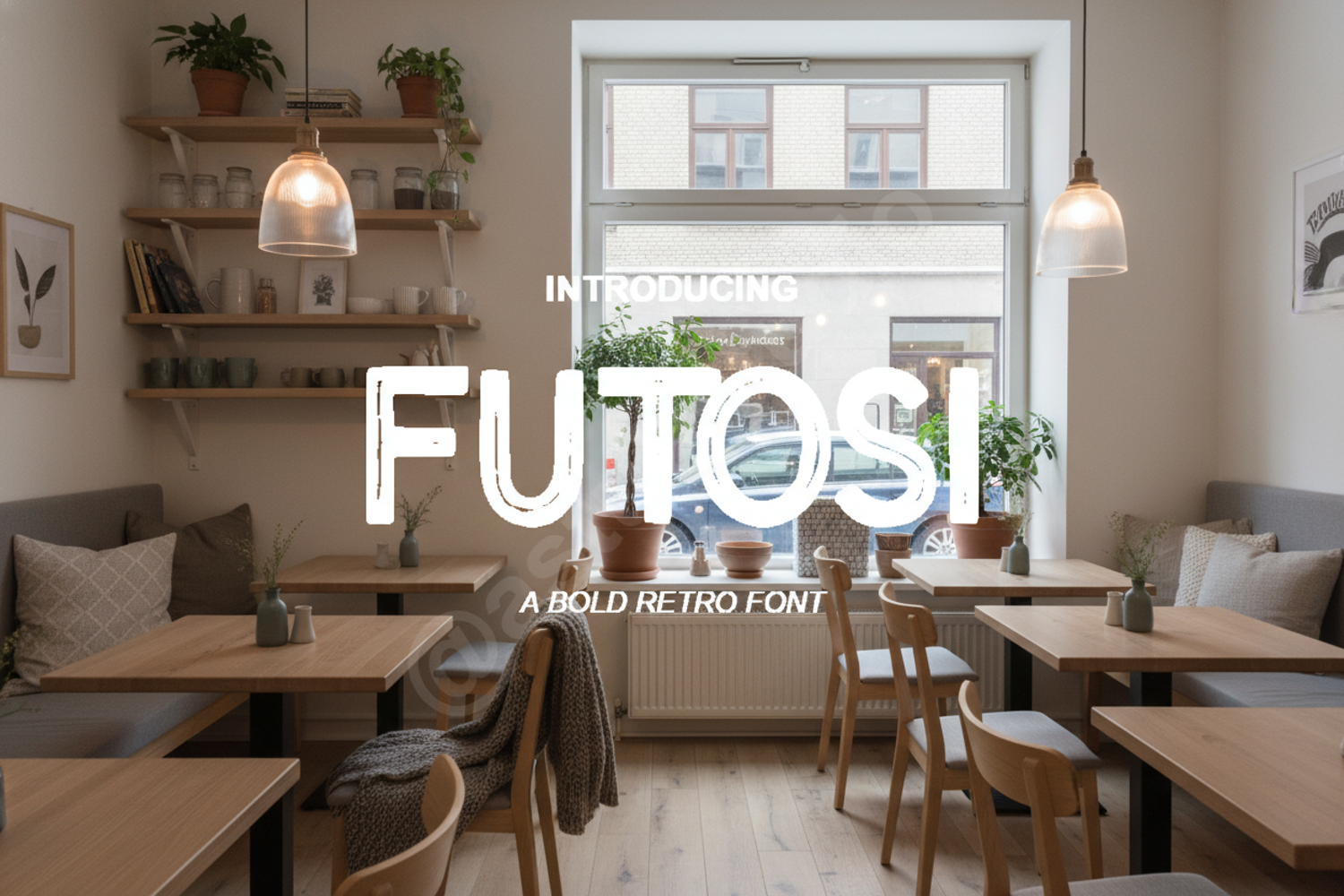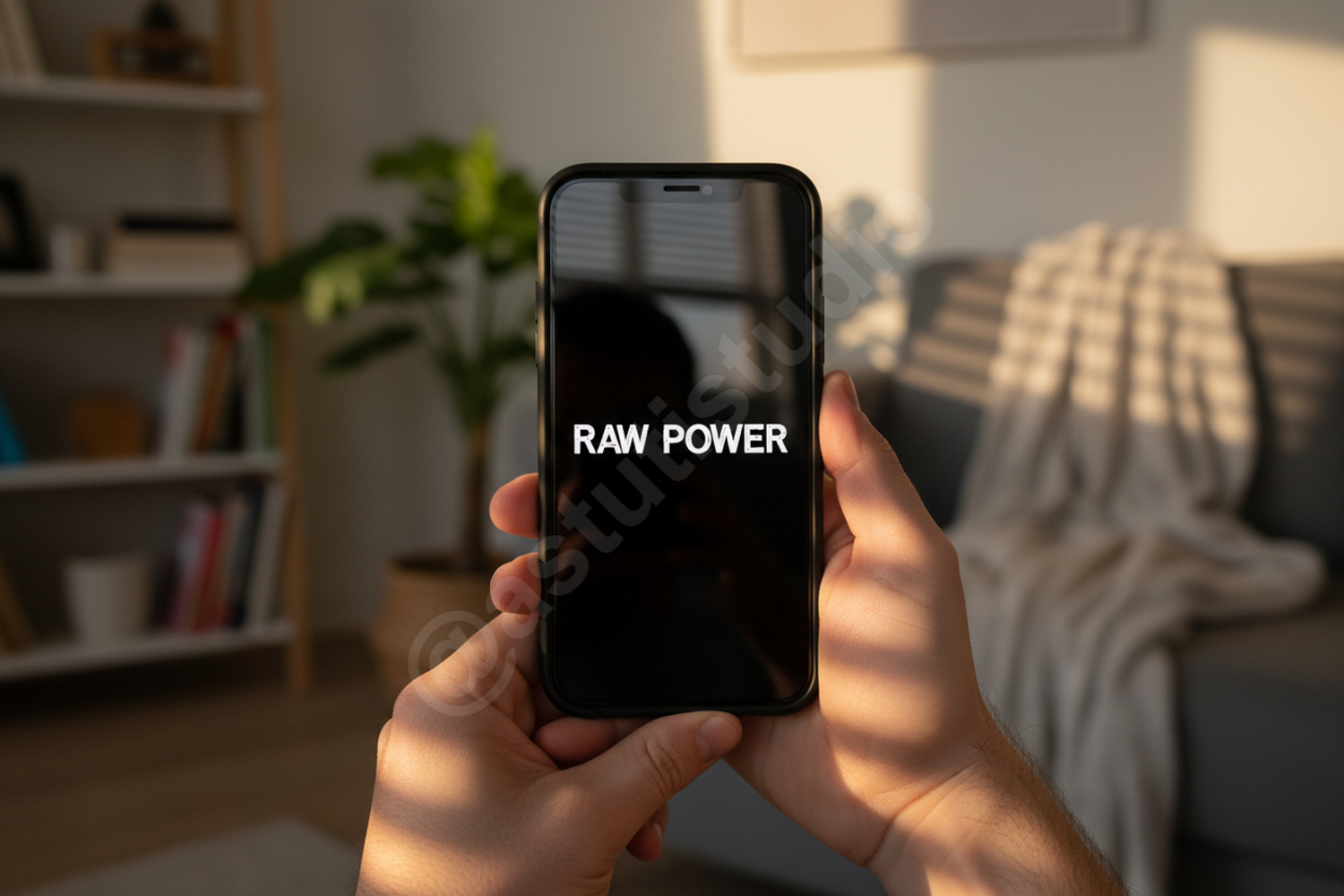
Futosi | Modern Bold Display Serif
Futosi
Futosi is a premium, high-impact display font that brings a sophisticated touch to any creative project. Designed with precision and a focus on modern aesthetics, this typeface offers a unique blend of bold character and elegant refinement. Whether you are working on a luxury brand identity or a high-end editorial layout, Futosi provides the versatility and professional polish needed to make your designs stand out.
- Comprehensive set of standard and discretionary ligatures
- Luxury Branding and Visual Identity
- Elegant Wedding Invitations and Stationery
- High-End Magazine and Editorial Layouts
- Engaging Social Media Graphics and Quotes
- Premium Product Packaging and Label Design
- Professional Logo Design and Wordmarks